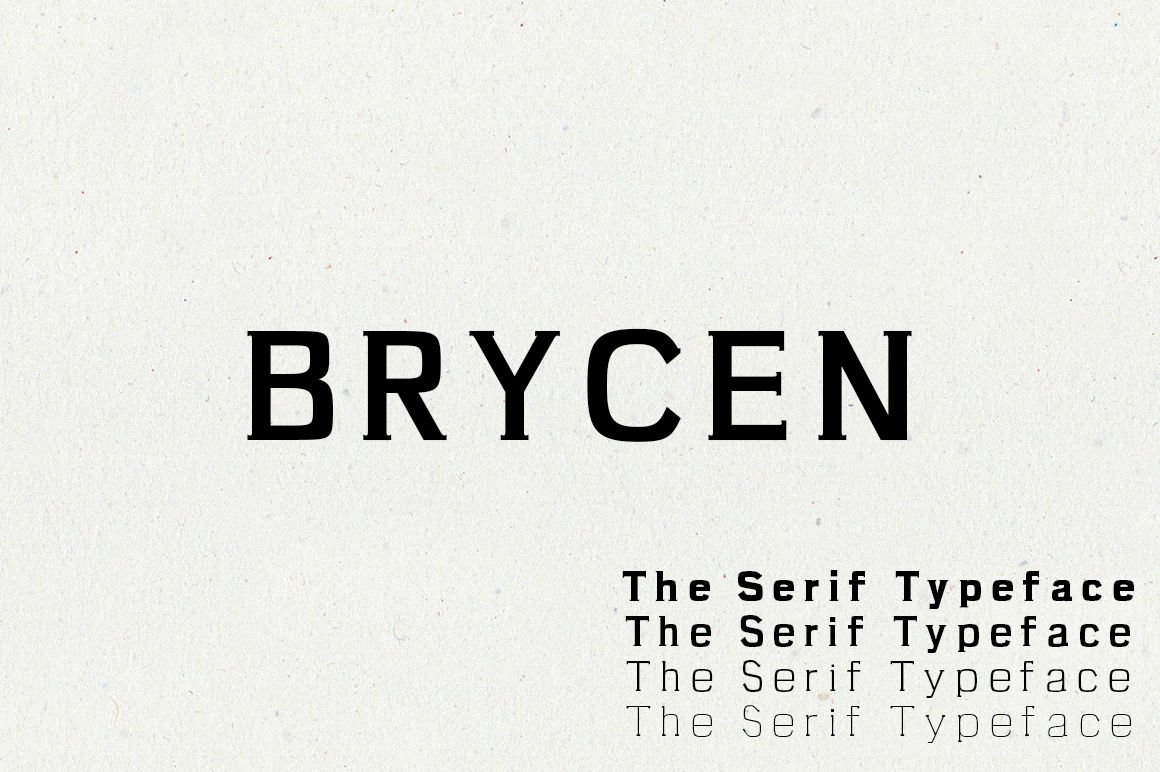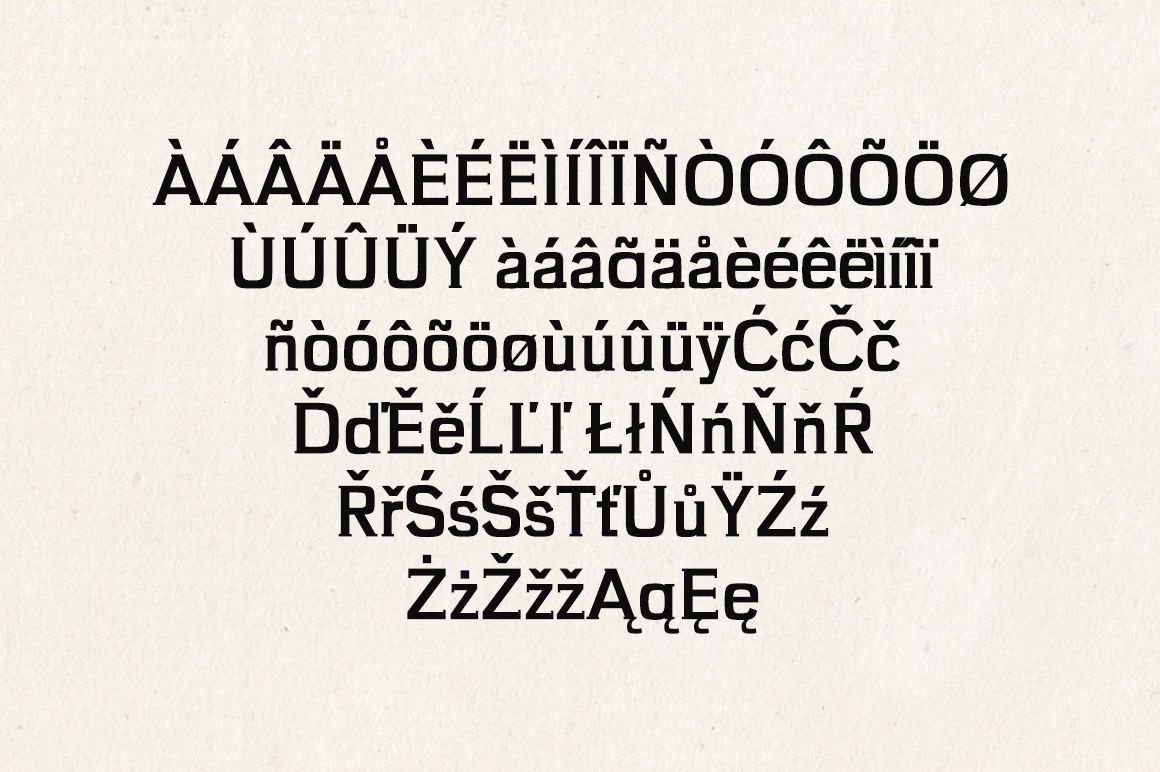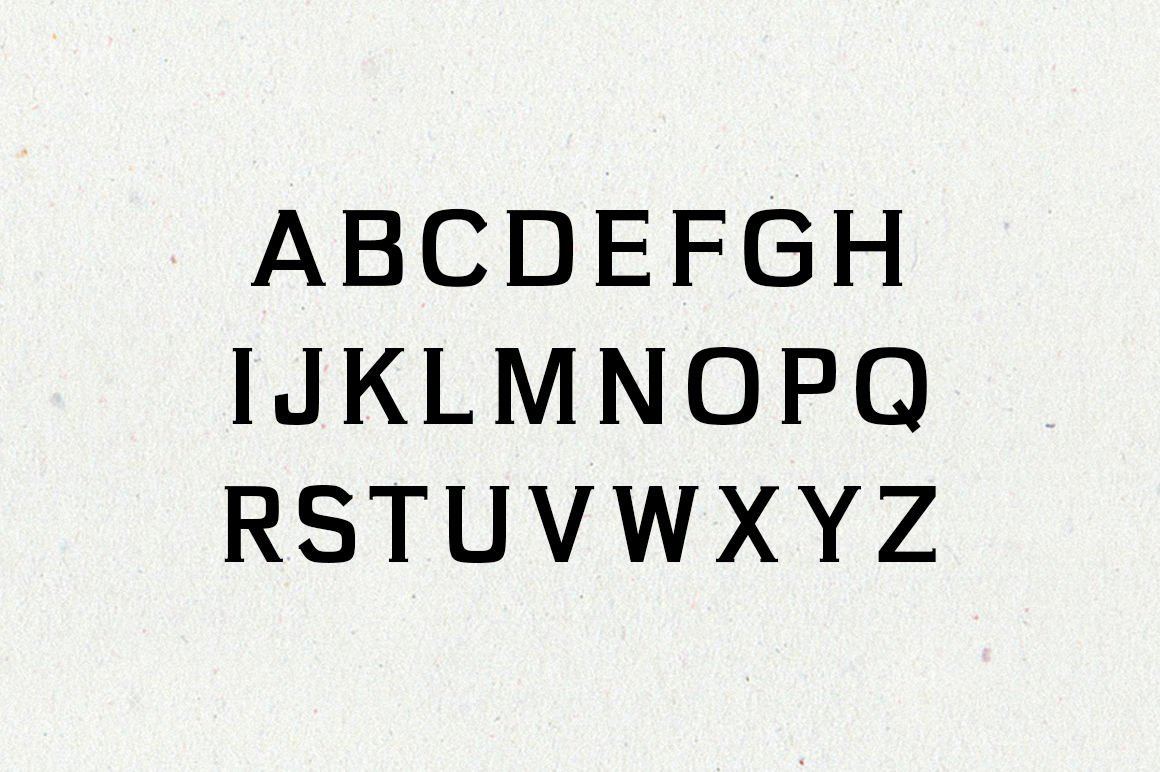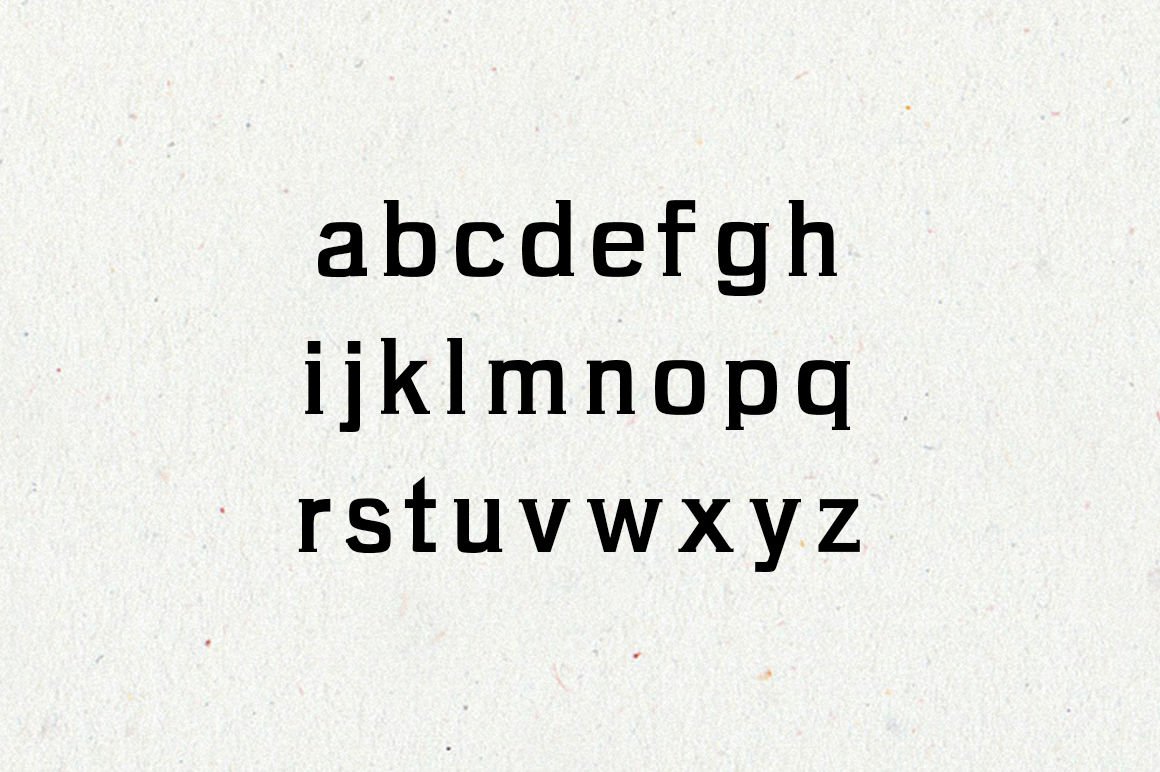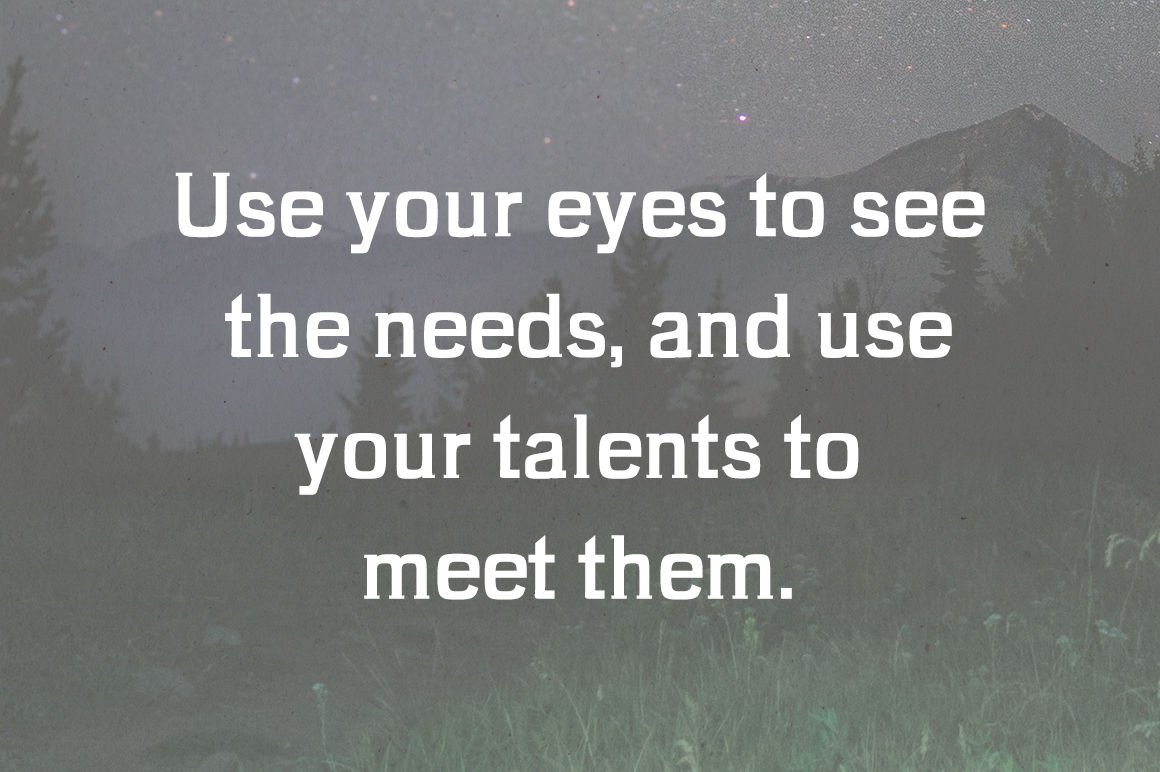
Brycen Serif Premium Font Family is a clean serif font family, which contains 7 weights and It features unique and modern serif look and feel. Perfect for gorgeous logos, titles, web layouts and branding. It looks gorgeous in all caps with a wide-set spacing if you want to try a classy look, or beautiful on its own in capital and lowercase letters for something completely timeless.